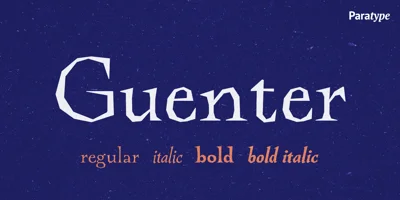
Guenter Font
Guenter Font is ideal for German-inspired branding, European cultural materials, traditional brewery signage, authentic restaurant menus, heritage craftsmanship labels, Old World packaging design, historical documentation, Germanic festival promotions, artisanal food products, and classic European communications. This distinguished typeface creates authentic European atmosphere in both traditional print and contemporary digital applications.
What makes Guenter Font exciting is its masterful interpretation of classic Germanic typography traditions with contemporary professional refinement. The font features sturdy letterforms with traditional European proportions and authentic character details that evoke centuries of Germanic craftsmanship and cultural heritage. Its distinguished design establishes an atmosphere of Old World reliability and European sophistication that appeals to audiences appreciating authentic cultural traditions.
Guenter Font family includes heritage styles: Light, Regular, Medium, Bold, and Blackletter versions, each with traditional alternates and Germanic character sets. Each variant maintains the font's cultural authenticity while providing designers with European options for creating traditional typography systems and heritage communication materials.
This distinguished European typeface brings authentic cultural credibility to projects requiring traditional presentation. Whether you're designing heritage branding, European cultural materials, or traditional marketing campaigns, Guenter Font delivers exceptional authenticity and Old World sophistication. The font's Germanic proportions and traditional details ensure memorable cultural connection across various heritage applications.
Cultural institutions and heritage brands recognize how Guenter Font perfectly captures the essence of Germanic tradition and European craftsmanship values. Its traditional foundation combined with contemporary functionality makes it essential for cultural and heritage design projects. Download today and honor your designs with this exceptionally authentic European typography.